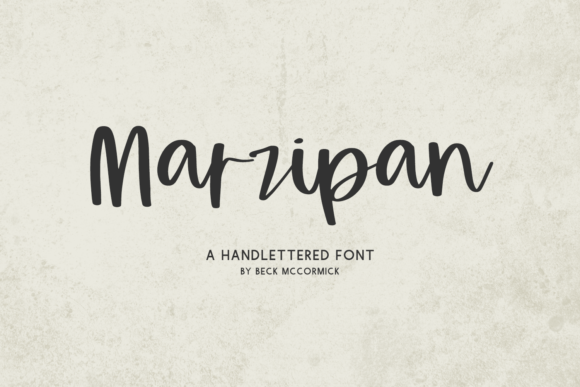
Presenting Marzipan Font, the Beguiling Handwritten Script That Will Ignite Your Creative Spirit
Welcome to the enchanting world of Marzipan Font, a modern handwritten script that will cast a spell on your creative endeavors. Marzipan is not just a font; it's an experience that will transform your designs, leaving an indelible mark on your audience.
With its graceful strokes and charming imperfections, Marzipan captures the essence of elegance and sophistication. This captivating script is perfect for adding a touch of whimsy and personality to your projects. Whether you're designing a logo, website, or social media post, Marzipan will effortlessly elevate your work to new heights.
Step into the Realm of Creative Possibilities with Marzipan
Marzipan Font is a versatile wonder that seamlessly blends beauty and functionality. Its carefully crafted glyphs inspire endless creative possibilities. Let Marzipan be your muse as you design logos that speak volumes, craft website designs that captivate, and create social media graphics that leave a lasting impression.
Unleash the Magic of Christmas with Marzipan
As the bells of Christmas chime, Marzipan Font becomes the perfect companion for your festive designs. Its enchanting flow and delicate curves bring an air of magic to your Christmas cards, gift tags, and holiday-themed projects. Prepare to be mesmerized as Marzipan transforms your Christmas creations into cherished keepsakes that evoke warmth, joy, and the spirit of the season.
Embark on a Creative Adventure with Marzipan Font
Marzipan is more than just a font; it's a catalyst for creativity. Its ability to evoke emotions and create a lasting impact is what sets it apart. Experience the joy of designing with a font that speaks to the heart and captivates the imagination.
Don't Limit Yourself. Let Marzipan Unleash Your Full Creative Potential
Whether you're a seasoned designer or just starting out, Marzipan Font is the perfect companion for your creative journey. Its user-friendly design and extensive range of characters make it accessible and enjoyable for designers of all levels. Embrace the limitless possibilities of Marzipan and watch your designs blossom into masterpieces.